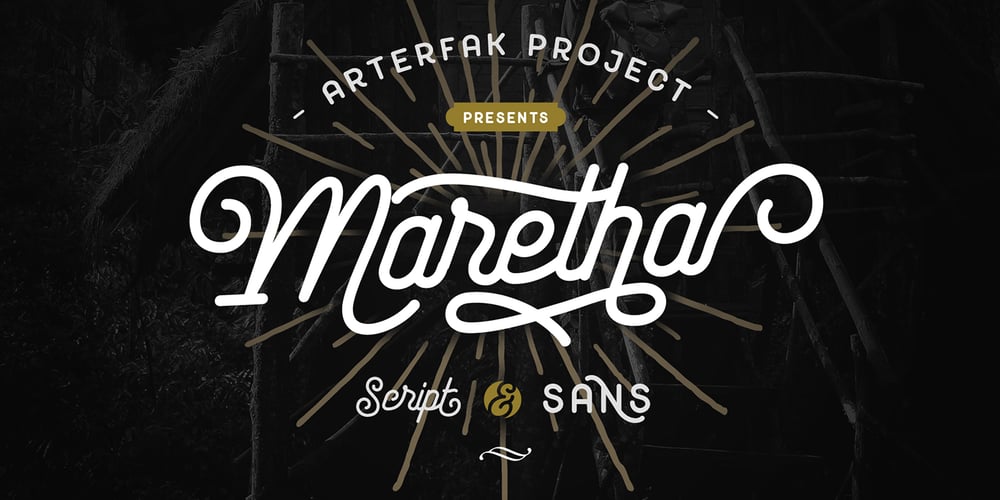
Maretha Font Family was designed by Ahmad Ramzi Fahruddin and published by Arterfak Project. Maretha contains 2 styles and family package options. Introducing our latest creation, Maretha Font Duo, a set of two fonts designed for good combinations. Script and Sans, 2 different styles that allows you to make a great custom combination of lettering designs. These fonts include some features such like alternates, swashes and ligatures to give you more options accessible in Adobe Photoshop, Illustrator, CorelDraw, etc. Maretha Script also has individual swashes you can apply in any lowercase-letters by pressing ‘underscore’ and ‘number 0-9’. These vintage minimalism fonts are great for any design project such as vintage logos, store fonts, clothing brand, label design, wedding invitations, quotes, craft and much more.